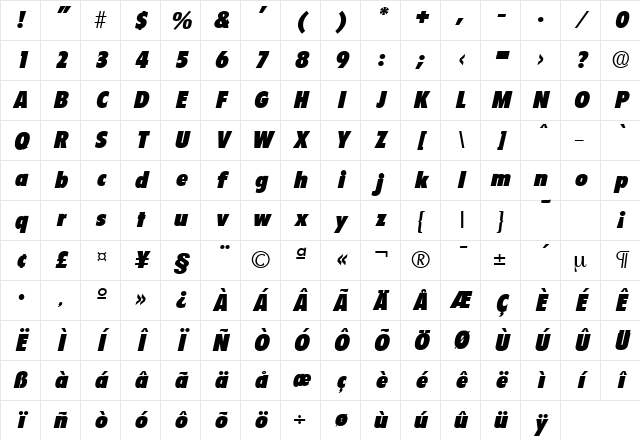
Florida-Serial-Black RegularItalic
Style: RegularItalic
Design Context for Florida-Serial-Black
Florida-Serial-Black is a composed and adaptable typeface that performs quietly and consistently across a wide range of design contexts. The slanted form adds forward momentum and visual energy.
Pro Tip: Use Florida-Serial-Black for emphasis, pull quotes, and subheadings where its slanted energy can add rhythm to the layout.